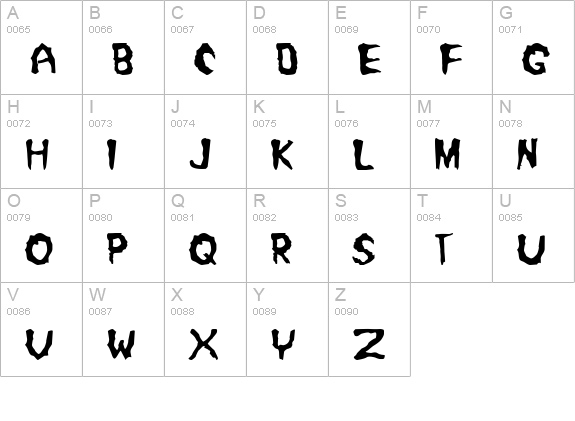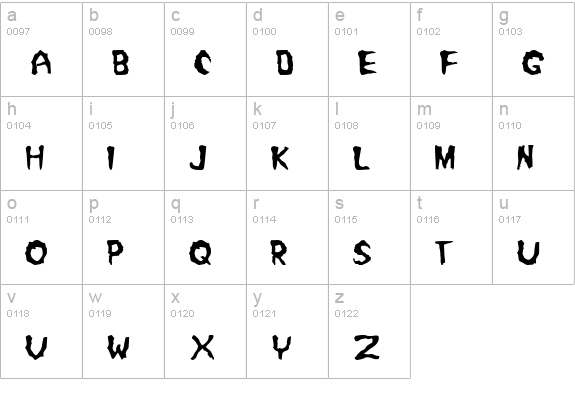
Misfit2 font is a striking and bold typeface that exudes a sense of edgy creativity and individuality. With its unique and unconventional design, this font is perfect for making a statement and standing out from the crowd. The sharp angles and distinctive letterforms give Misfit2 a modern and avant-garde feel, making it ideal for use in branding, poster design, and other creative projects. What's even better is that Misfit2 is available for free download at FontsMarket.com, allowing designers and creatives to easily access this eye-catching font and incorporate it into their work without any cost. Don't miss out on the opportunity to add a touch of rebellious flair to your designs with Misfit2 font - download it today and let your creativity run wild!